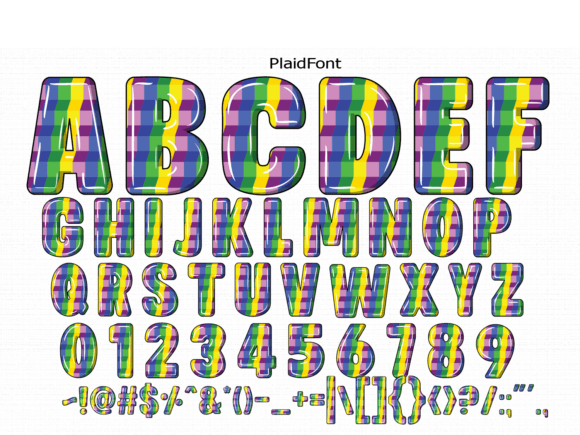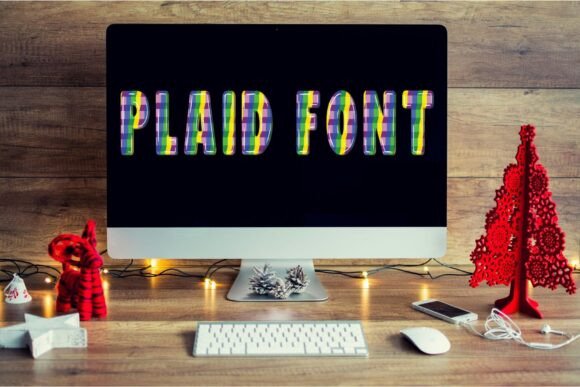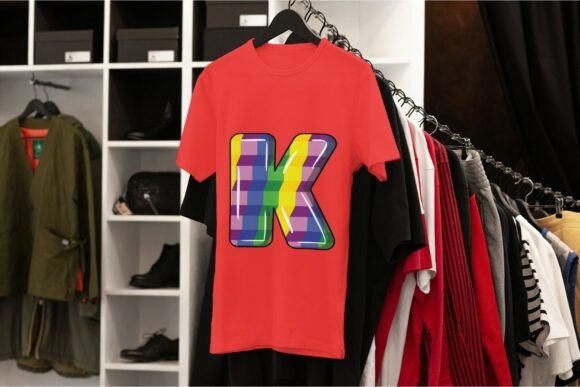
Introduction to Plaidfont Font
Have you ever been working on a creative project, pouring your heart and soul into it, only to feel like something’s missing? That’s where the Plaidfont Font comes in – a magical and striking design resource that can add a touch of magic to your creations. Whether you’re a seasoned designer or just starting out, this font is a game-changer that can elevate your projects from ordinary to extraordinary.
Imagine being able to add a pop of personality to your scrapbooks, or create eye-catching banners and blog backgrounds that capture everyone’s attention. With the Plaidfont Font, the possibilities are endless. And, with its high-quality design, you can trust that your creations will stand out from the crowd. As a valuable tool for designers, this font is a must-have for anyone looking to take their creative projects to the next level.
Key Features of Plaidfont Font
- High-quality design resource ideal for creative projects, including posters, flyers, and brochures.
- Unique plaid pattern with a transparent background, allowing for seamless integration into various design elements.
- Includes 6 different plaid patterns, each with a unique design and color scheme, to suit various creative needs.
Honest Review: Plaidfont Font
I recently stumbled upon the Plaidfont Font while searching for a design resource for a creative project. The moment I saw it, I knew I had to give it a try.
Here are some of the things that work well:
- ✨ High-quality font that looks great on both light and dark backgrounds.
- ✨ Unique plaid pattern that adds a touch of sophistication to any design.
- ⚠️ Limited customization options, which might not be ideal for designers who want more control.
- ⚠️ The transparent background can sometimes make it difficult to read the text, especially if it’s placed on a busy design.
Overall, I’m impressed with the Plaidfont Font. It’s a great design resource for anyone looking to add a unique touch to their creative project. While it may not be perfect, it’s definitely worth checking out – especially considering it’s free to download!
How to Use Plaidfont Font
The Plaidfont Font is a high-quality design resource that offers a unique and creative twist to any project. With a transparent background, it’s perfect for adding a touch of elegance to your designs.
Using Plaidfont Font in Creative Projects
You can use the Plaidfont Font in a variety of creative projects, including:
- Canva: Add a touch of sophistication to your social media graphics and presentations
- Adobe Photoshop/Illustrator: Use the Plaidfont Font to create stunning typography and graphics
- PowerPoint/Word: Add a unique flair to your presentations and documents
Tips for Getting the Most Out of Plaidfont Font
Here are a few tips to help you get the most out of the Plaidfont Font:
- Experiment with different font sizes and styles to create a unique look
- Combine the Plaidfont Font with other design elements to add depth and interest
- Use the font in conjunction with a high-quality image or background to create a stunning visual effect